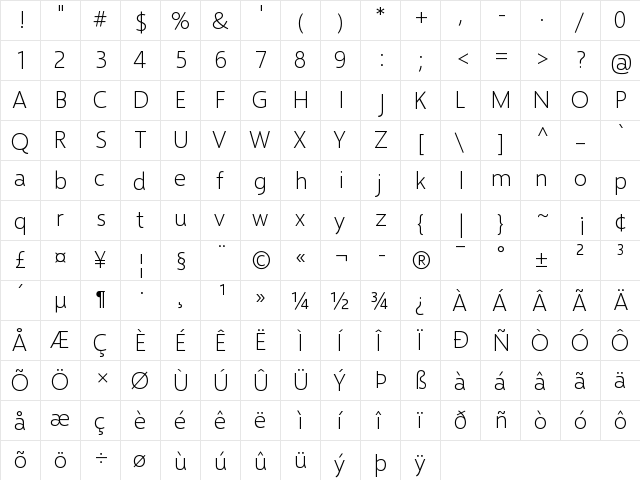
Selawik Light
| Foundry | Microsoft Corporation |
| Designer | Aaron Bell |
Design Context for Selawik Typeface
Selawik is a composed and adaptable typeface that performs quietly and consistently across a wide range of design contexts. Its slender proportions lend an understated elegance to any composition.